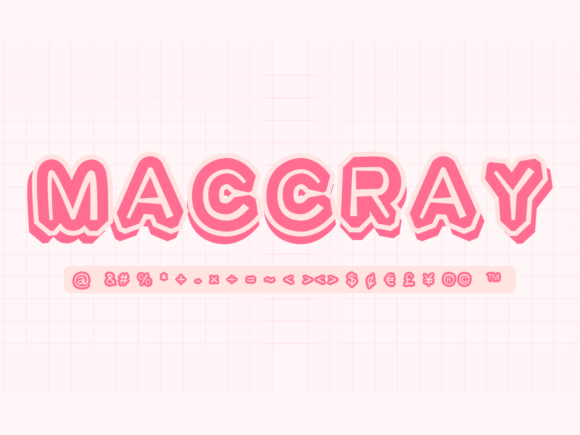
Unleash the magic of Maccray Font, a visual masterpiece designed by Pukka De. This display font is not just a collection of letters; it's a portal to a world where creativity knows no bounds.
Maccray Font is a captivating blend of modern and whimsical styles. Its unique design is sure to leave a lasting impression, whether you're creating tri-fold posters, stunning logos, or eye-catching headlines. Let your imagination soar as you journey through the vast realms of your creativity with Maccray as your guide.
With its mesmerizing curves and enchanting swashes, Maccray Font will transform your designs into captivating works of art. Its enchanting aura will draw your audience into a world of fascination, leaving them spellbound by your creations.
Embrace the allure of Maccray Font and embark on a creative odyssey where the ordinary becomes extraordinary. Its versatility knows no limits, allowing you to effortlessly craft designs that radiate elegance, sophistication, and a touch of playful charm.
Maccray Font is the key to unlocking your creative potential. Its magical essence will inspire you to weave tales through your designs, captivating your audience with every stroke and every curve.